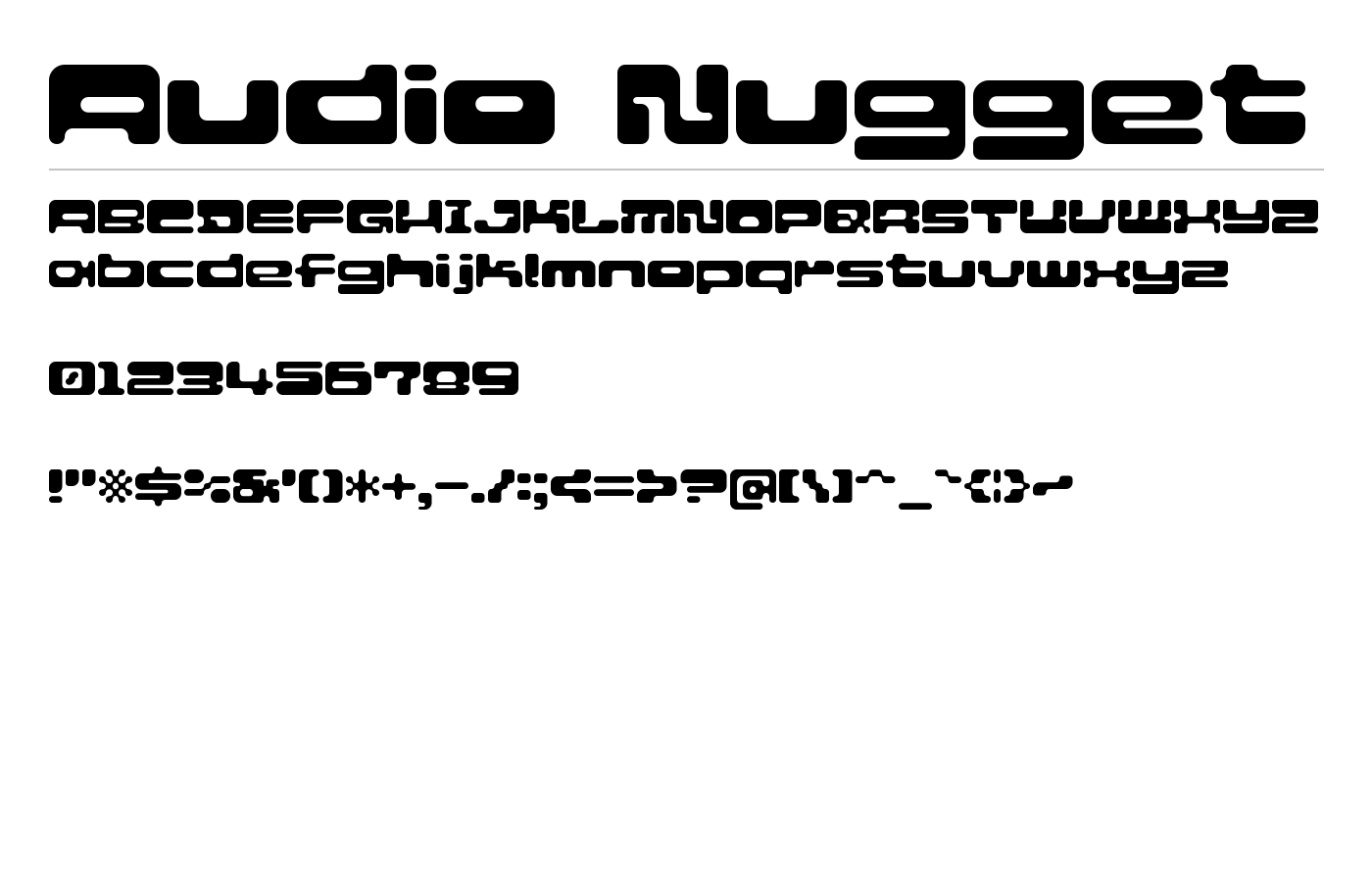
Audio Nugget is a bold, geometric sans serif font with a playful, futuristic vibe. Its thick, rounded strokes and tight spacing give it a compact, tech-inspired look that works well for logos, headlines, and digital-themed designs where a modern, strong presence is needed. This font’s unique shapes and heavy weight make it ideal for grabbing attention in branding and creative projects.
Audio Nugget Font